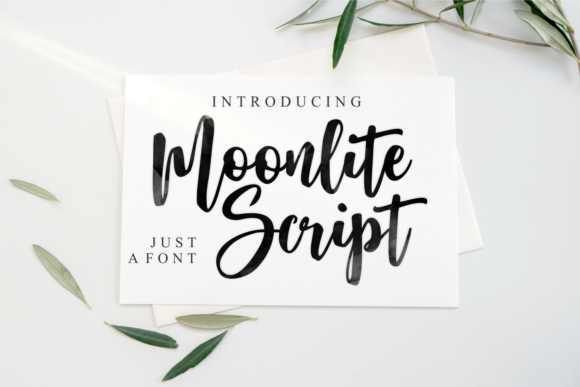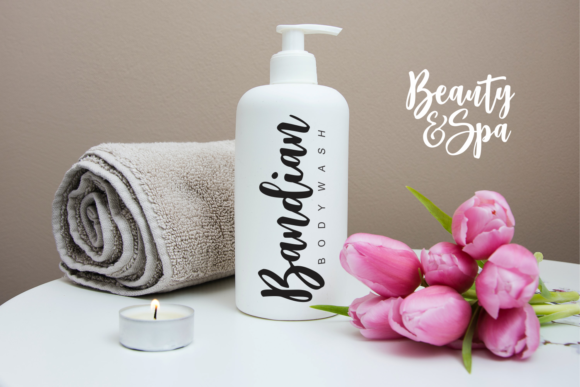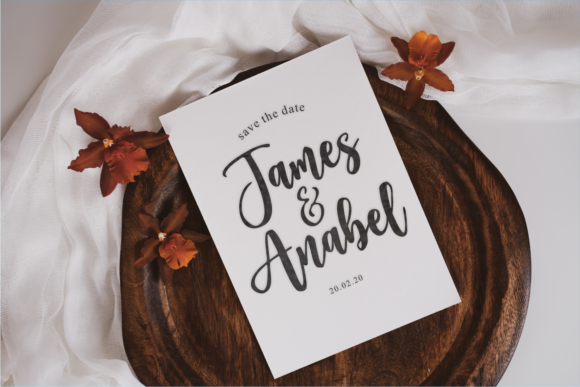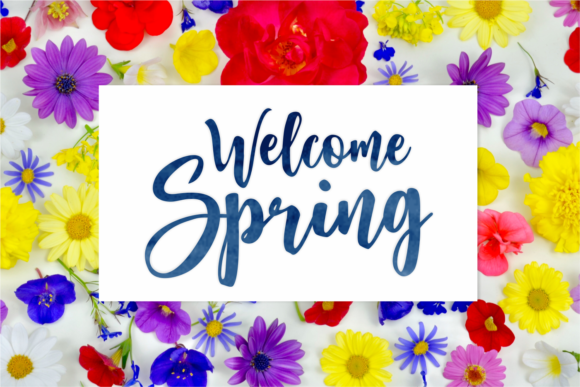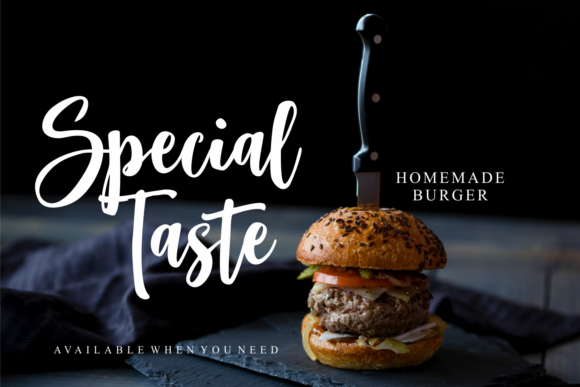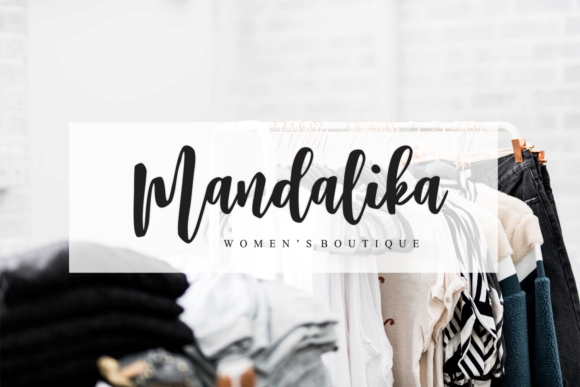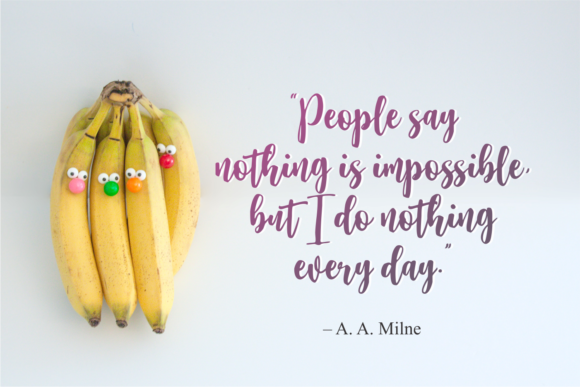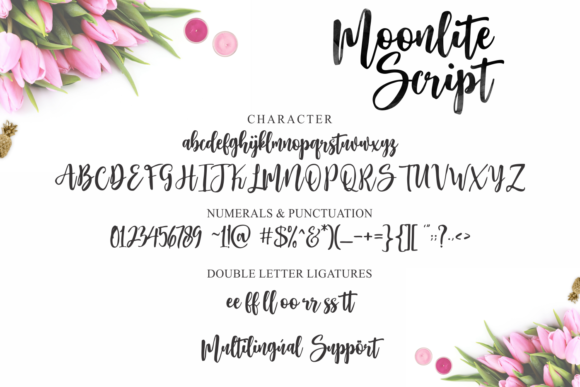
Moonlite Script Font
About Moonlite Script Font
Moonlite Script is a trendy and fashionable script font. It is defined by smooth curves and is perfect for fashion branding or editorial designs. Add it confidently to your projects, and you will love the results.